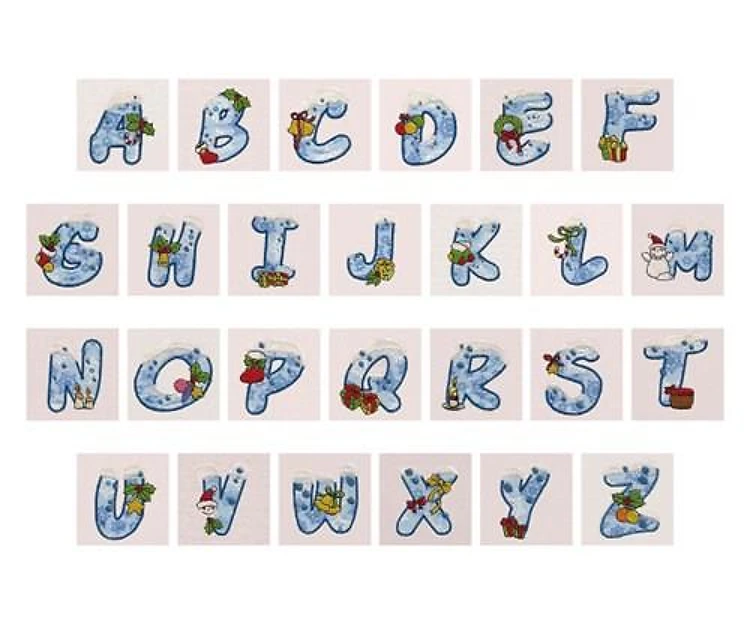
Christmas Applique Alphabet Embrilliance Embroidery Font - Decorative Holiday Alphabet - BX font by Daydream Designs and other embroidery fonts available at EmbroideryDesigns.com.
DayDream Designs is happy to present Christmas Applique Alphabet Embrilliance Embroidery Font - Decorative Holiday Alphabet - BX font machine embroidery font which has Colorful Christmas-themed applique embroidery font suited for holiday projects on stockings or table runners. Available in BX font and Embrilliance formats. included. If you would like to view more embroidery fonts and alphabets please search our embroidery fonts page.
Christmas Applique Alphabet Embrilliance Embroidery Font - Decorative Holiday Alphabet - BX font